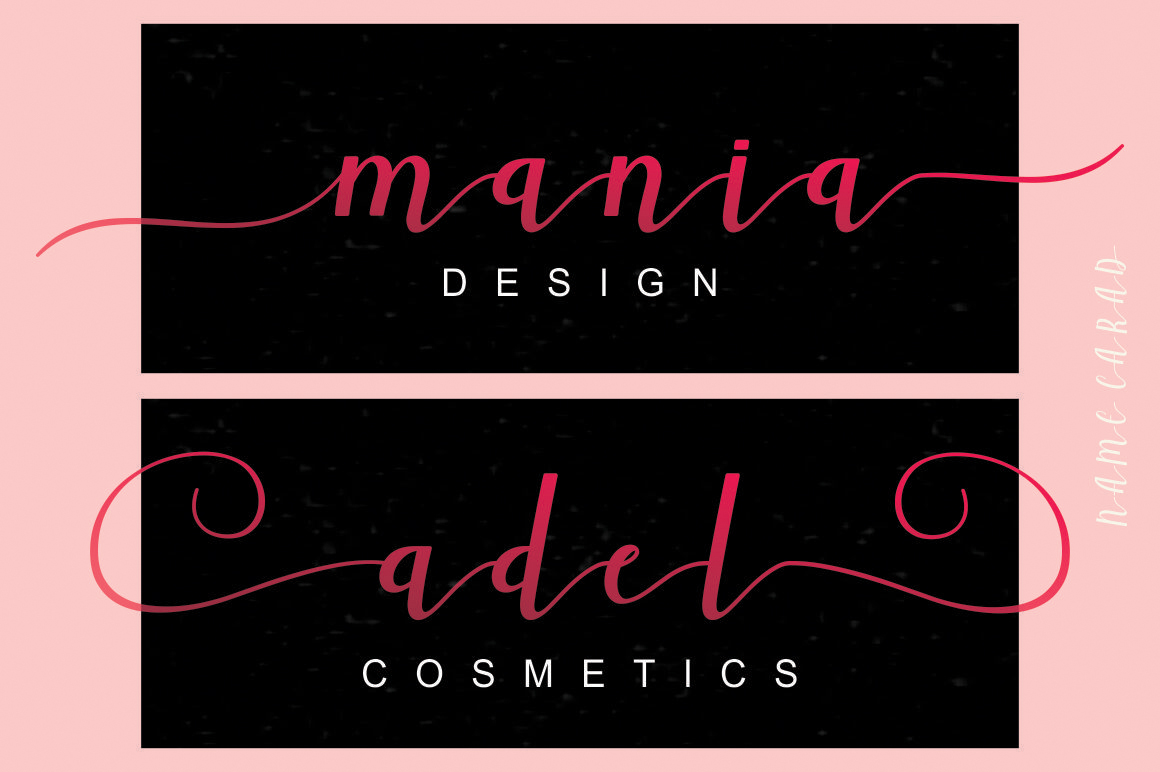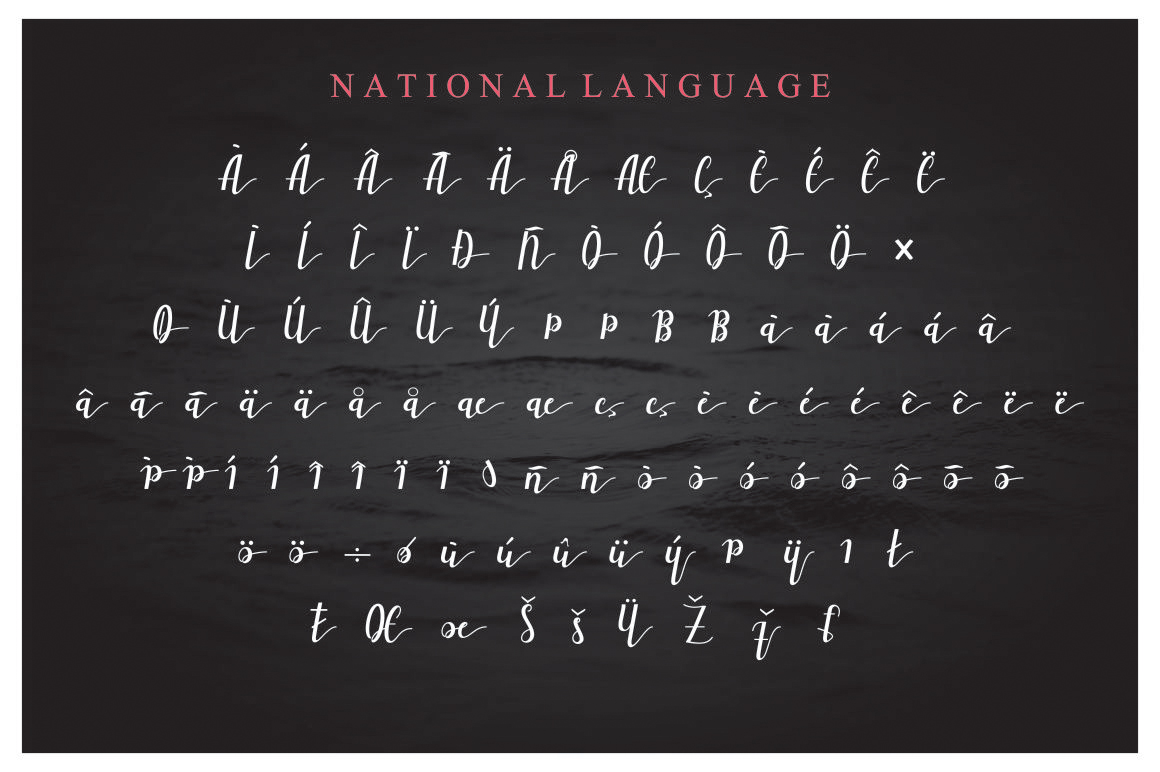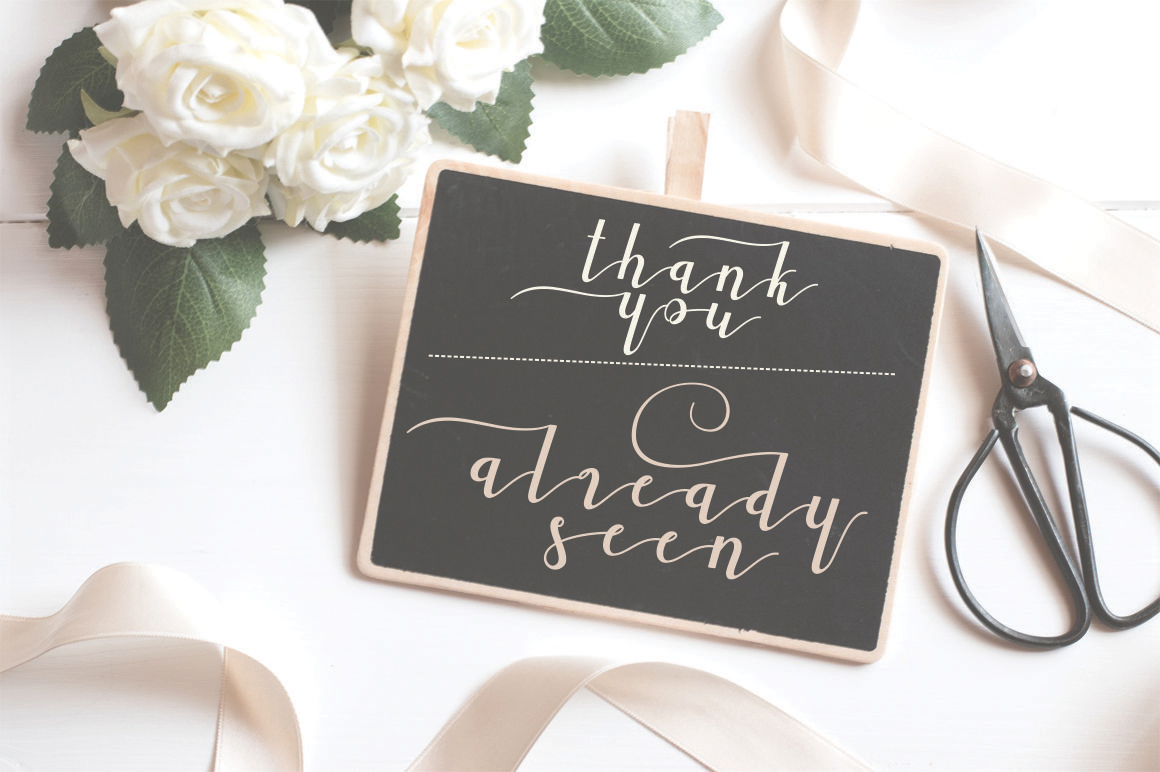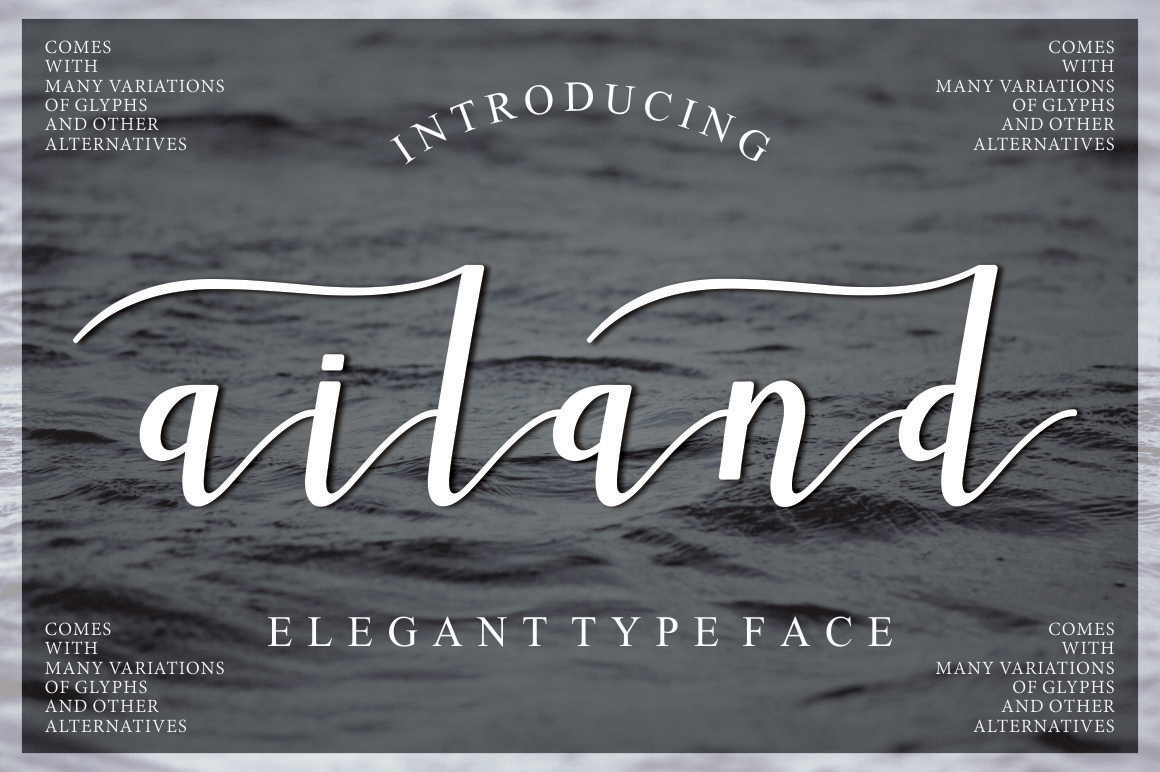
About Ailand Font
Ailand is a beautiful modern script font that will make your text look beautiful with elongated connections. This font is gorgeous and ideal for a lot of project types that necessitate some elegance and style. Add this lovely freebie to your creations and take your designs to the next level!